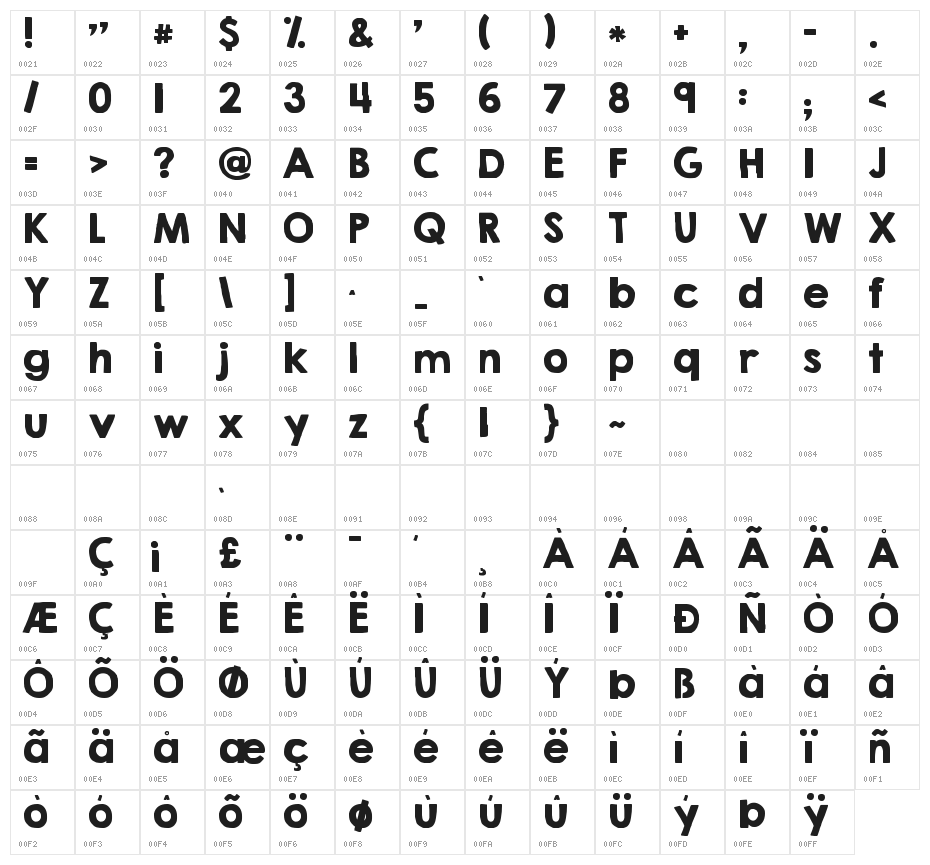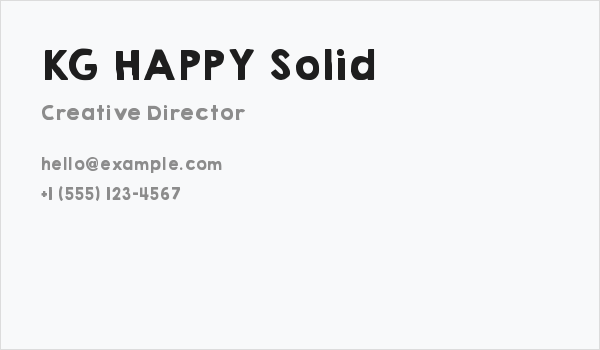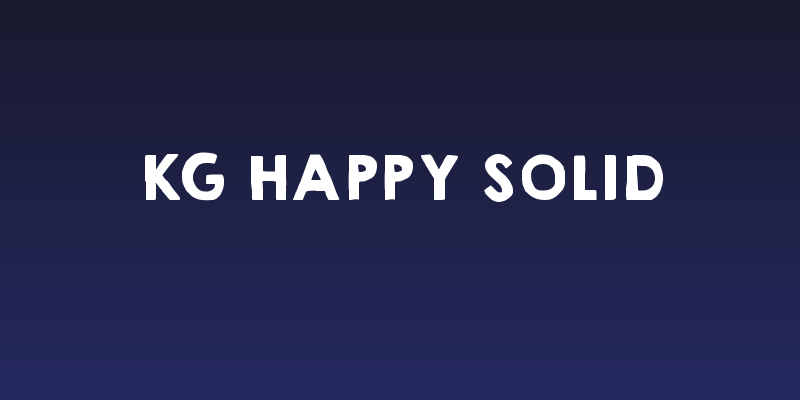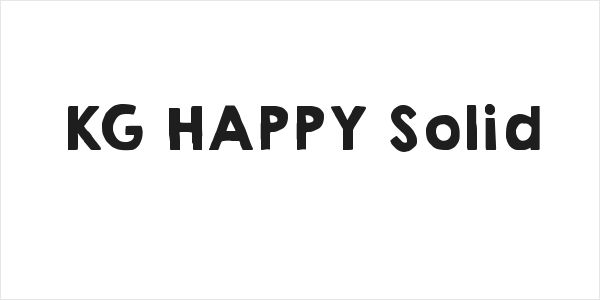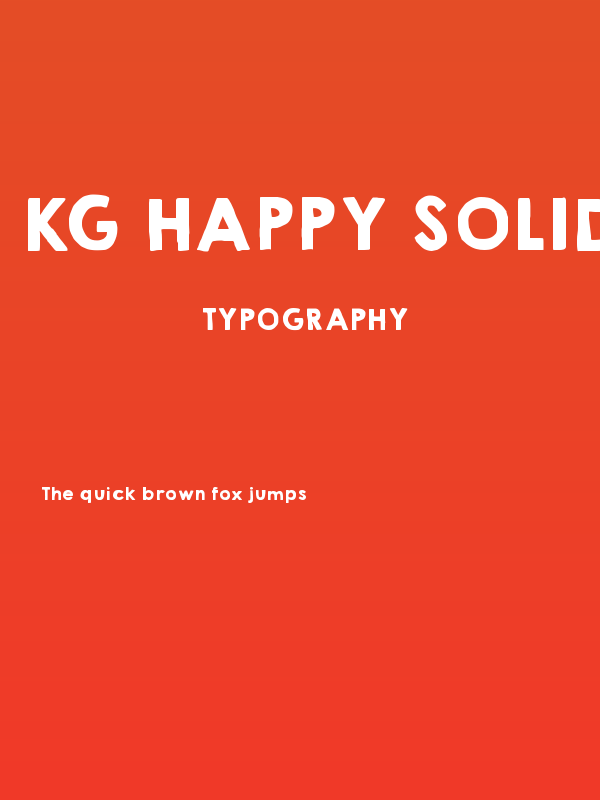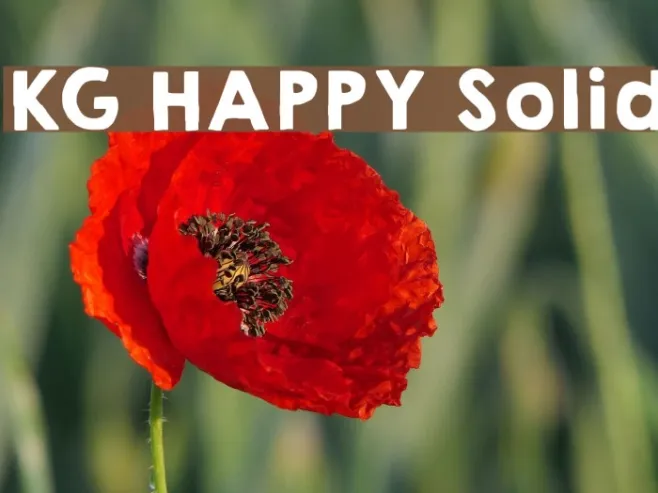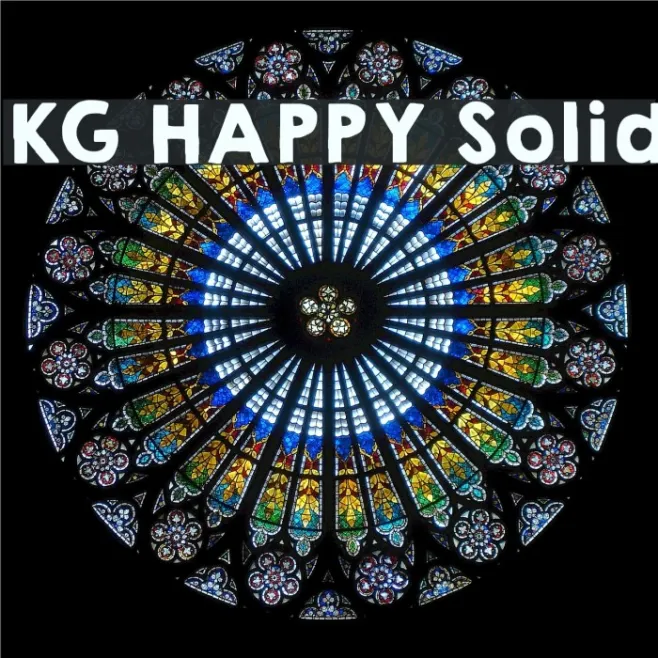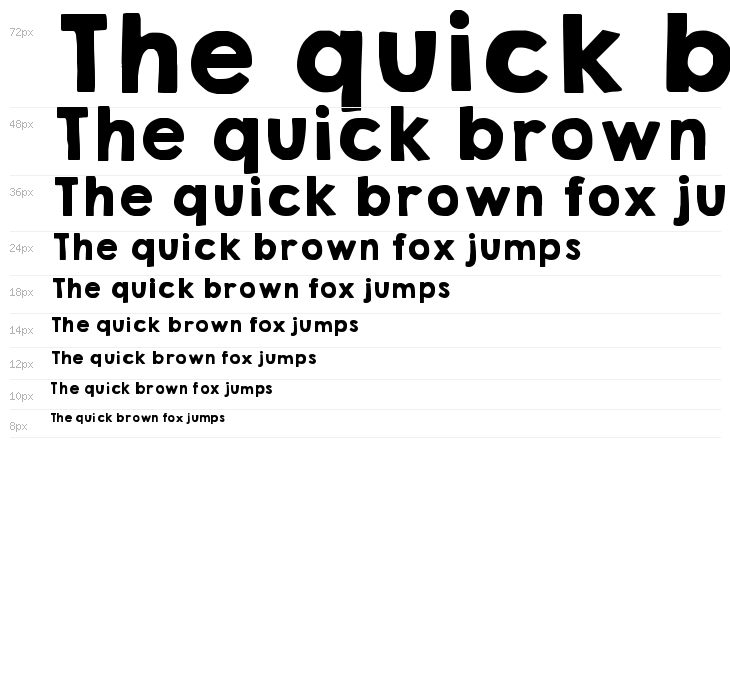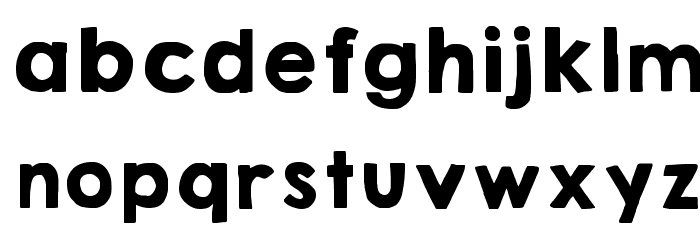
KG HAPPY Solid Font
KG HAPPY Solid Description
This font features a playful and bold design, characterized by its rounded edges and thick strokes. The letters are evenly spaced, providing a balanced and cohesive look. The uppercase and lowercase letters maintain a consistent style, with a slight variation in the curvature of certain characters, adding to its whimsical appeal. The numbers are bold and clear, making them easily readable. Special characters are included, maintaining the same playful style, which makes this font versatile for various design needs. Its boldness and unique style make it stand out, perfect for projects that require a fun and engaging typeface.
| Proposed Projects | Ideal for children's books, playful branding, posters, and greeting cards. |